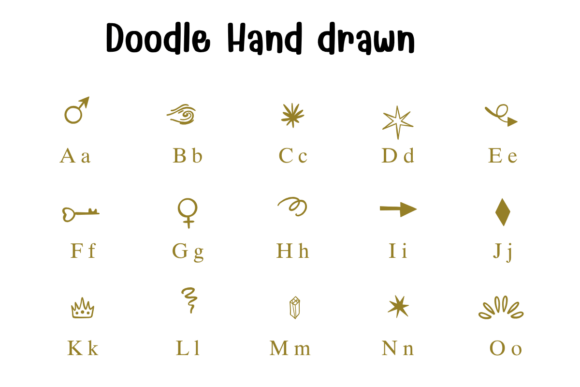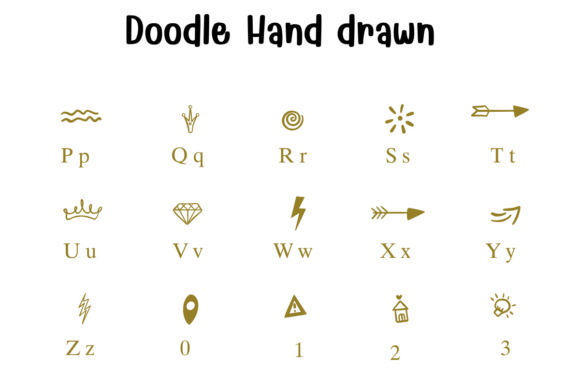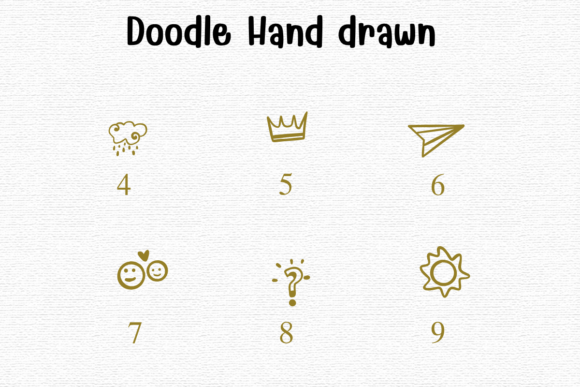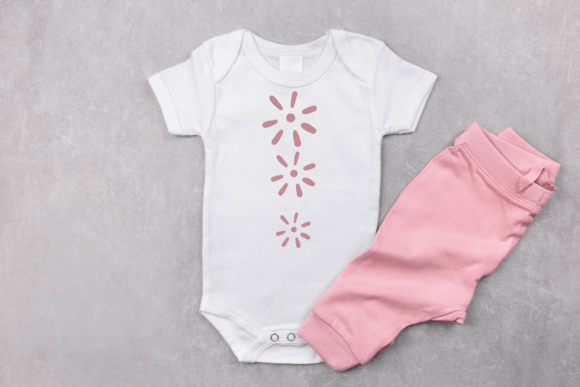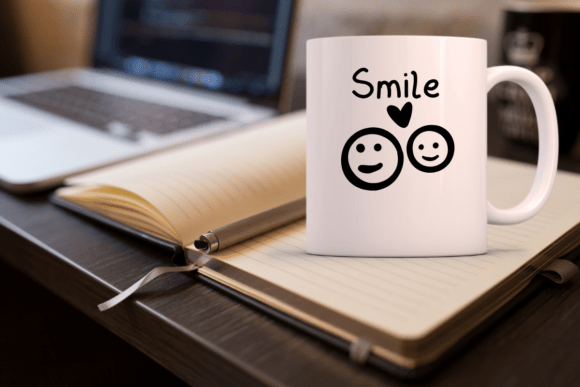
Doodle Hand Drawn Font: Unleash Your Creativity with Whimsical Typography
Are you a designer, crafter, or artist looking for a unique and playful way to add personality to your projects? Look no further than the Doodle Hand Drawn Font! This charming font is perfect for creating eye-catching designs, from whimsical illustrations to colorful crafts. In this article, we’ll explore the world of Doodle Hand Drawn Fonts, including OTF, TTF, Procreate, Affinity, and more.
What is a Doodle Hand Drawn Font?
A Doodle Hand Drawn Font is a type of font that mimics the look of hand-drawn doodles. These fonts are often characterized by their playful, irregular, and whimsical design. Each letter and symbol is carefully crafted to resemble a hand-drawn doodle, giving your text a personal and unique touch.
Types of Doodle Hand Drawn Fonts
There are several types of Doodle Hand Drawn Fonts available, including:
Benefits of Using Doodle Hand Drawn Fonts
Doodle Hand Drawn Fonts offer a range of benefits for designers and crafters, including:
- Unique and playful designs: Add a touch of personality to your projects with these whimsical fonts.
- Versatility: Use Doodle Hand Drawn Fonts in a variety of projects, from illustrations and crafts to branding and marketing materials.
Coloring Outline and Dingbats
Many Doodle Hand Drawn Fonts come with coloring outline and dingbat options, allowing you to add an extra layer of creativity to your designs. These outlines and dingbats can be used to:
- Create custom illustrations: Use the font’s outline and dingbat features to create unique illustrations and graphics.
- Add texture and interest: Add texture and interest to your designs with the font’s built-in coloring outline and dingbat options.
Doodle Cartoon and Hand-Drawn Style
Doodle Hand Drawn Fonts are perfect for creating a doodle cartoon or hand-drawn style in your designs. With their playful and whimsical design, these fonts can help you:
- Create engaging illustrations: Use Doodle Hand Drawn Fonts to create engaging and playful illustrations.
- Add a personal touch: Add a personal touch to your designs with the font’s hand-drawn style.
Tips for Using Doodle Hand Drawn Fonts
Here are some tips for getting the most out of your Doodle Hand Drawn Font:
- Experiment with different colors: Try out different colors and color combinations to add depth and interest to your designs.
- Mix and match fonts: Combine your Doodle Hand Drawn Font with other fonts to create a unique and eye-catching design.
- Use in combination with graphics: Use your Doodle Hand Drawn Font in combination with graphics and illustrations to create a cohesive design.
Doodle Hand Drawn Fonts are a great way to add a touch of personality and whimsy to your designs. With their playful and irregular design, these fonts are perfect for creating eye-catching illustrations, colorful crafts, and engaging branding materials. Whether you’re a designer, crafter, or artist, Doodle Hand Drawn Fonts are a versatile and fun tool to have in your creative arsenal.